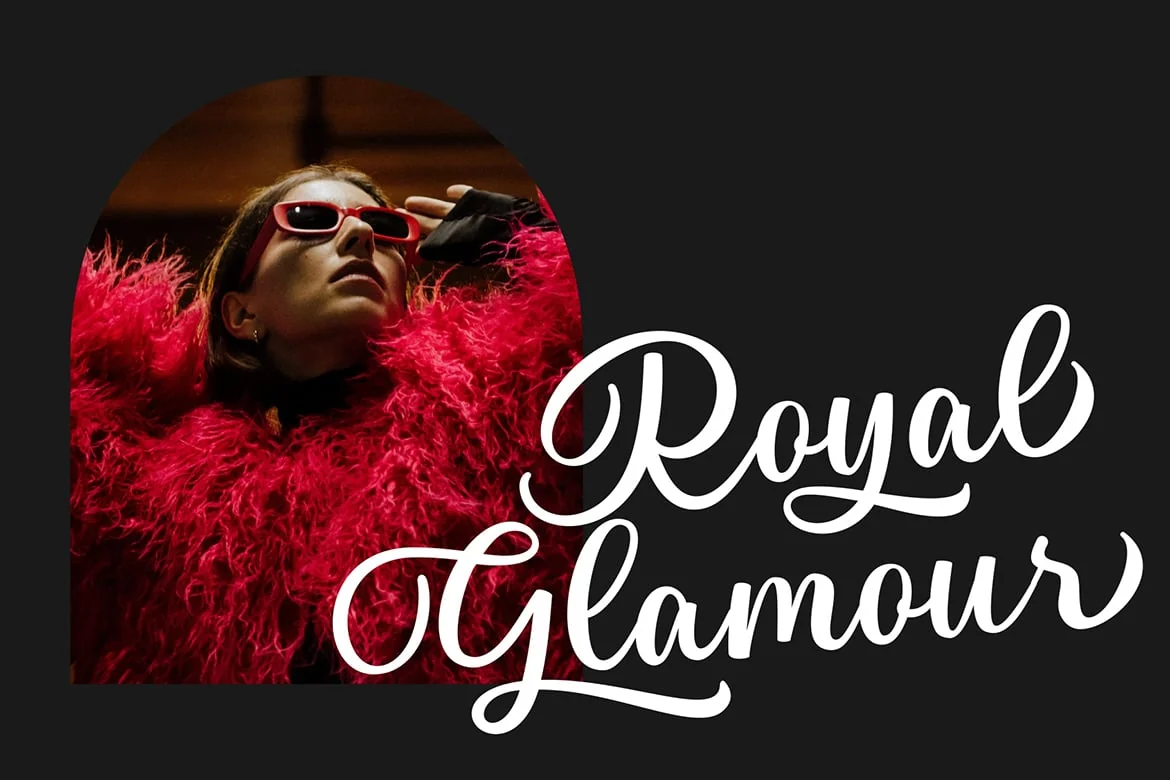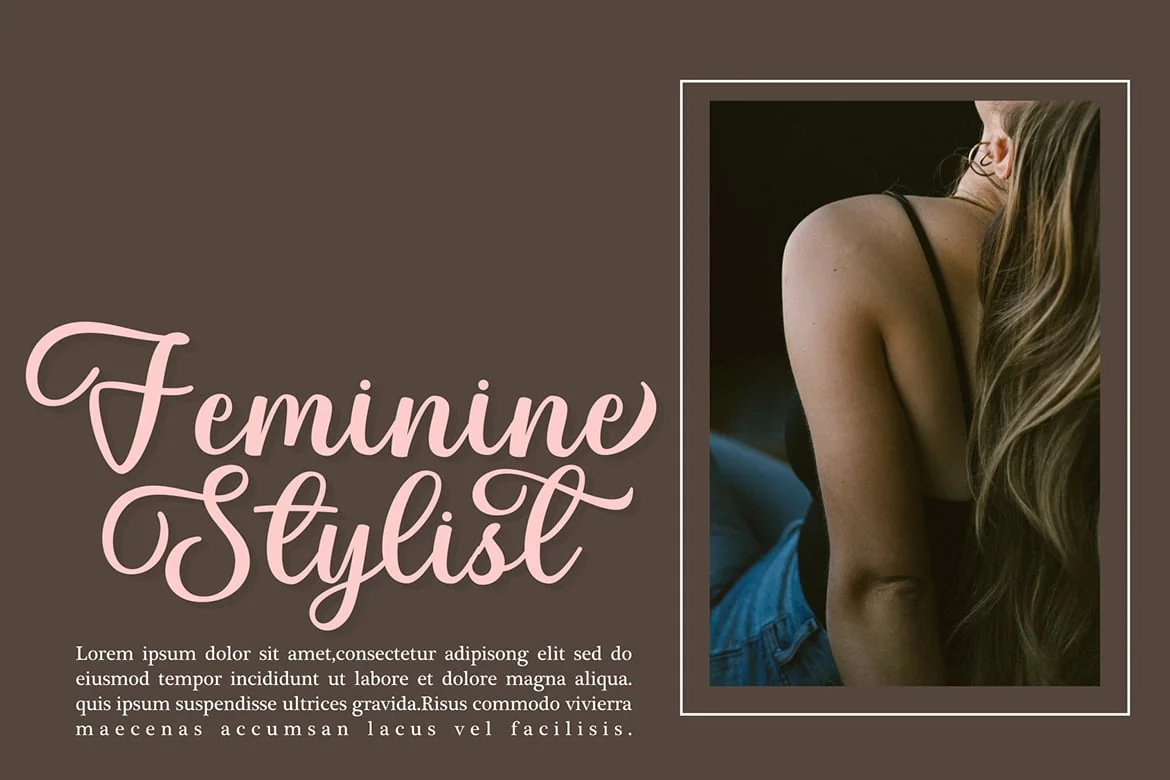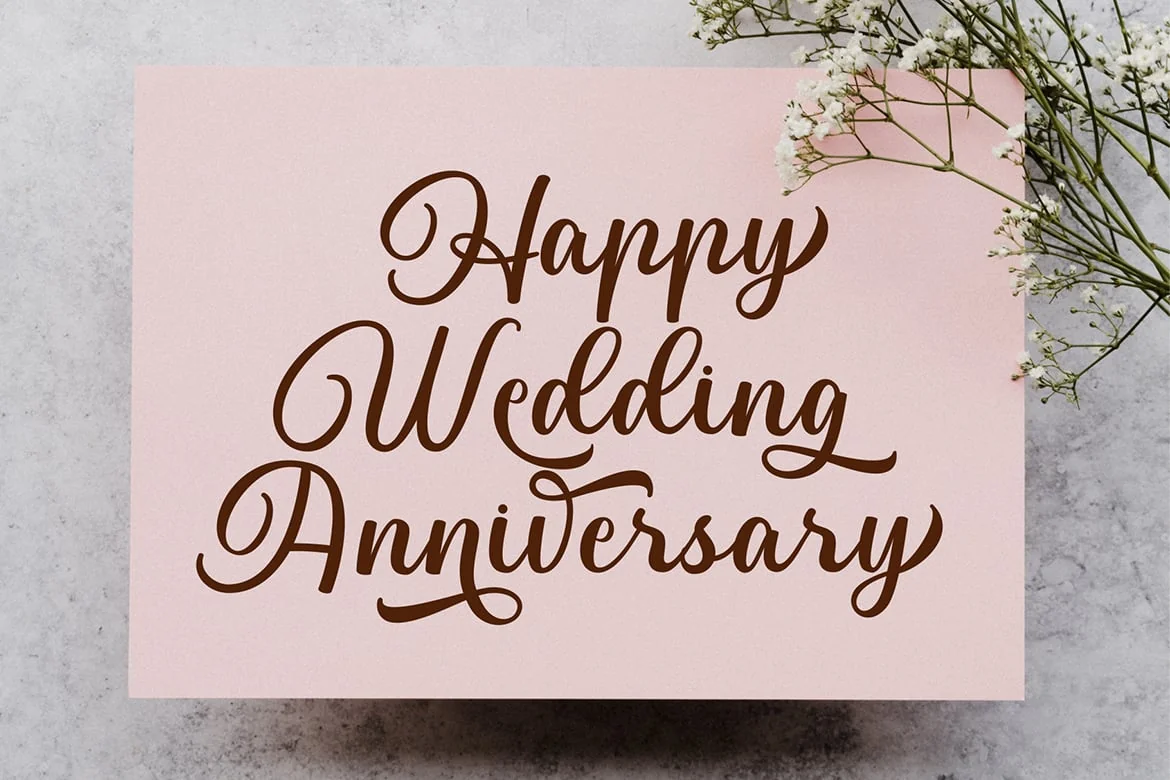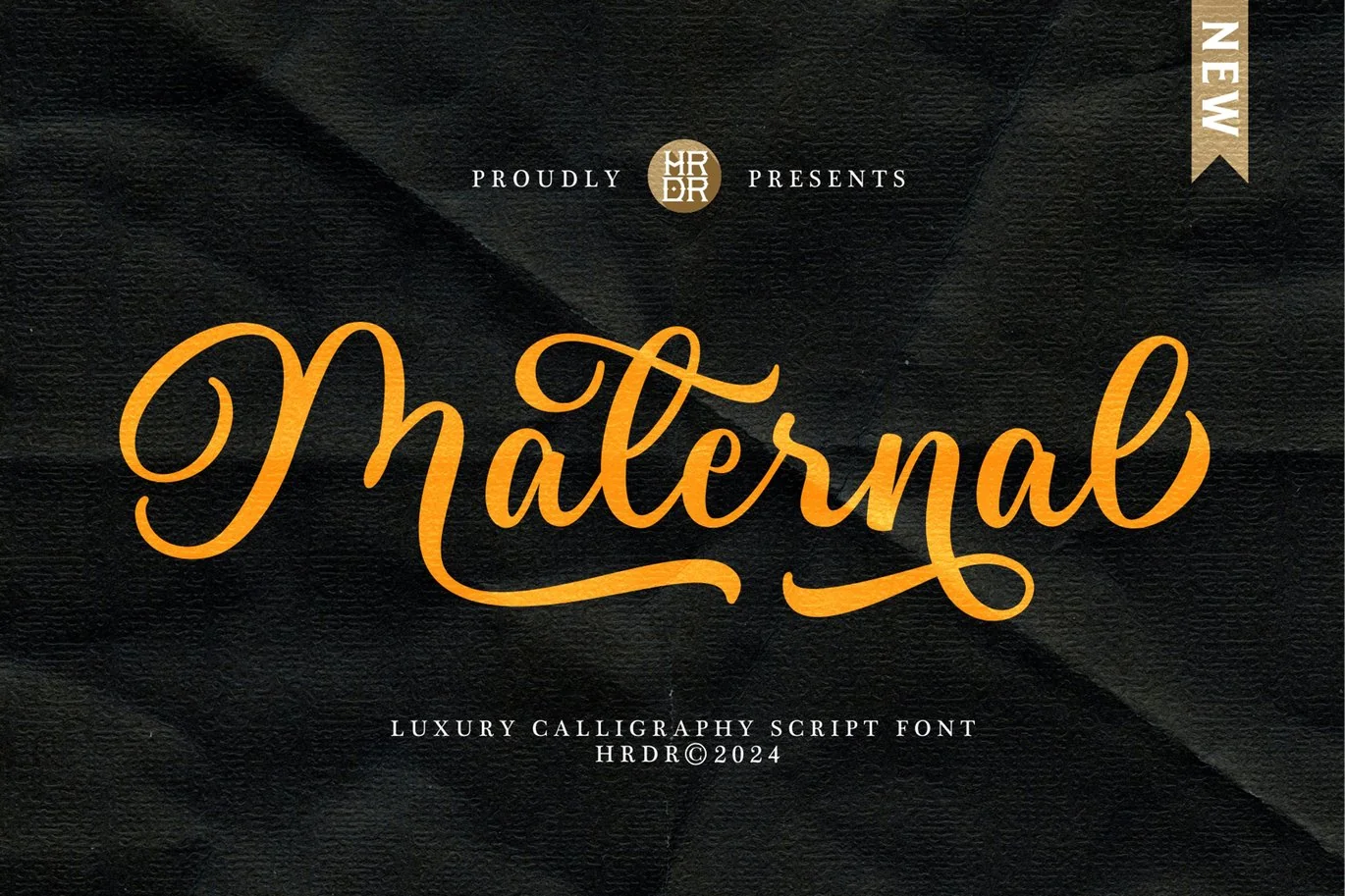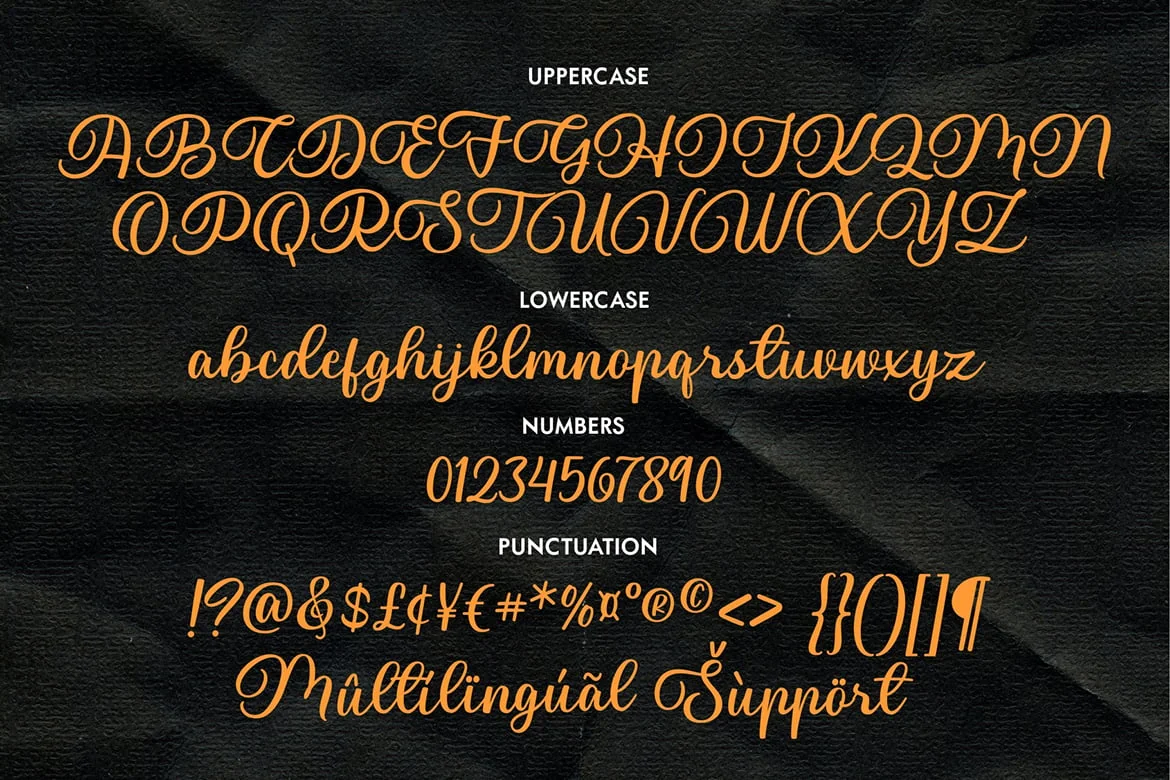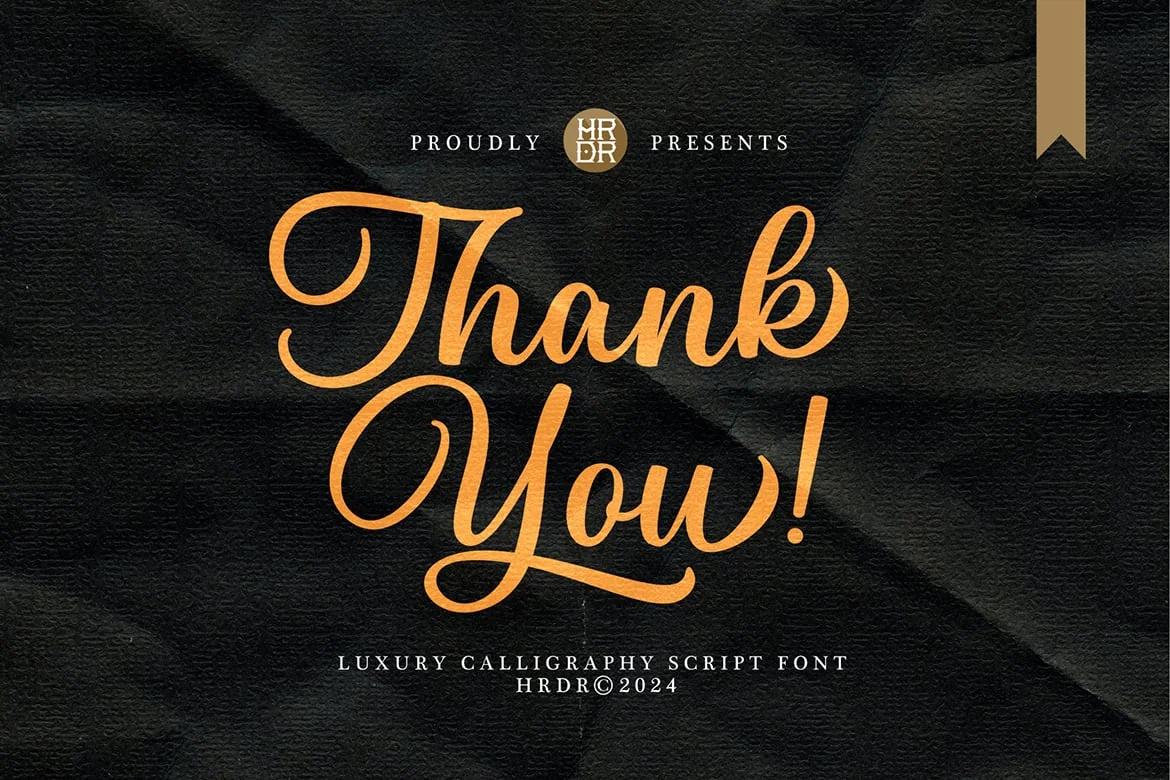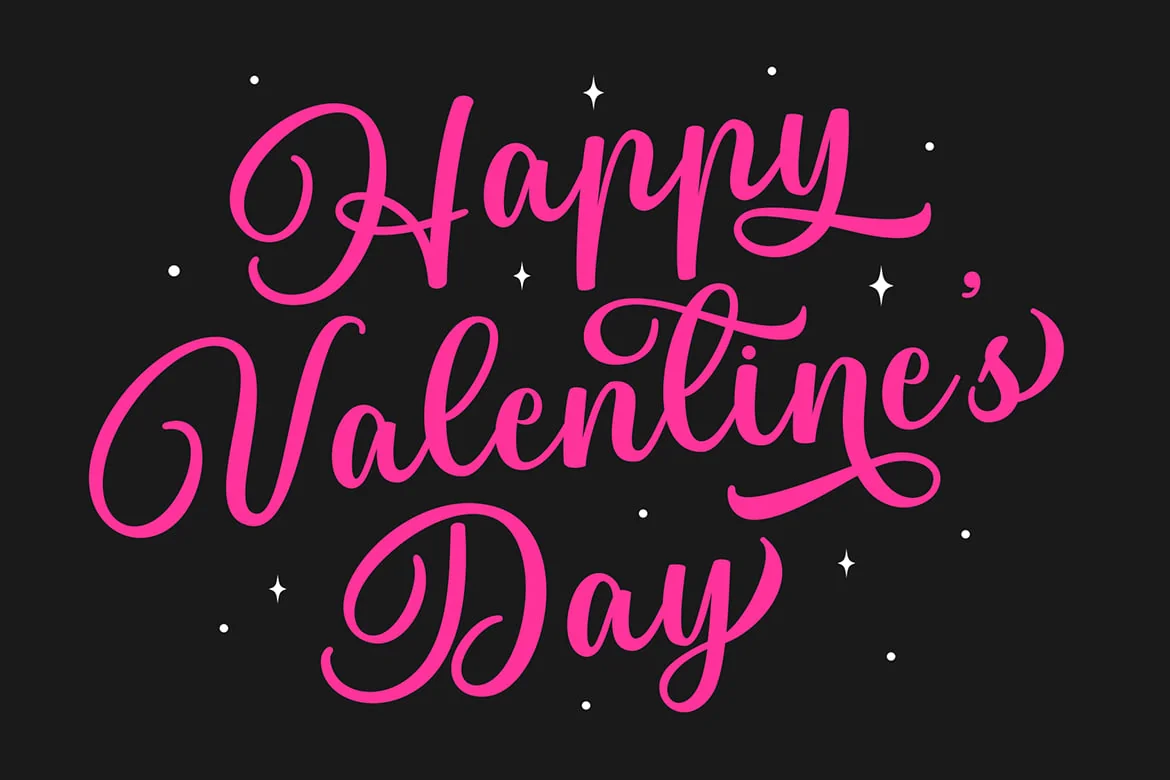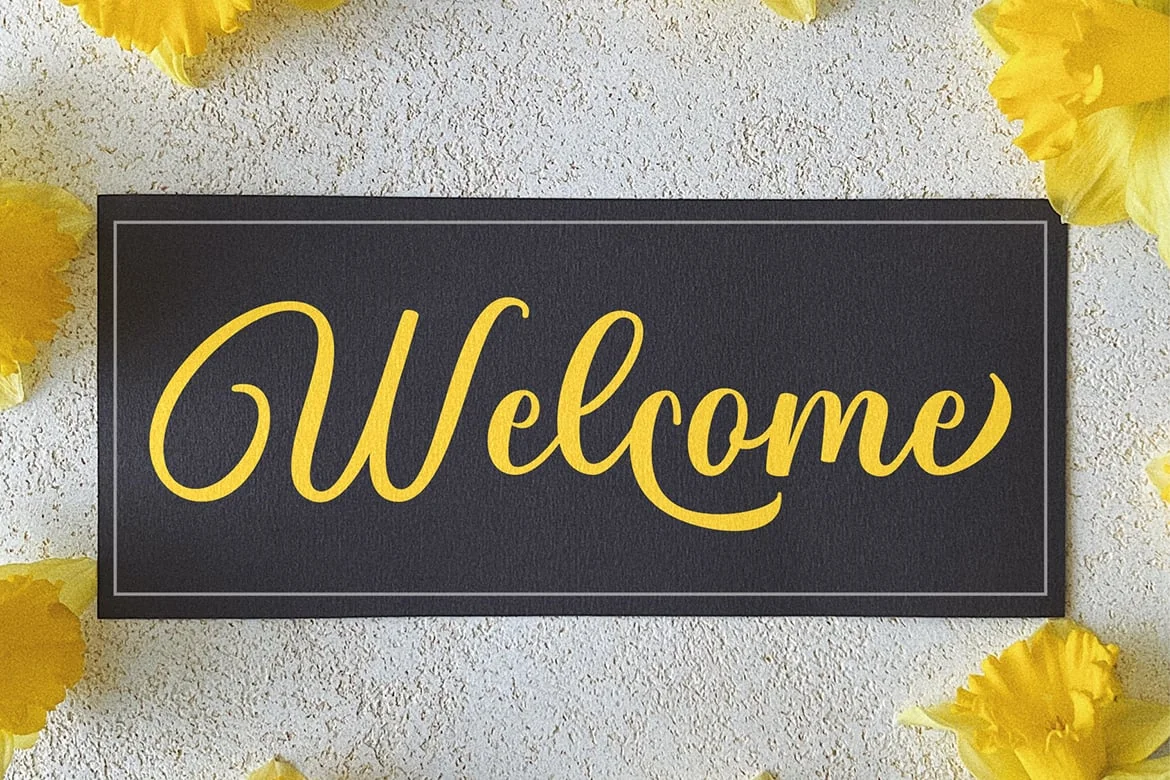
Maternal – Luxury Calligraphy Font
Maternal Font is a modern and luxury Calligraphy font.
It’s perfect for branding, wedding invitations, photography, Neon Sign, bloggers, logos, greeting cards, Logo, Quotes and more.
Font Features :
- numeric & Multilingual support
- Stylistic Alternates with (Ss01,Ss02,Ss03 and Ligatures)